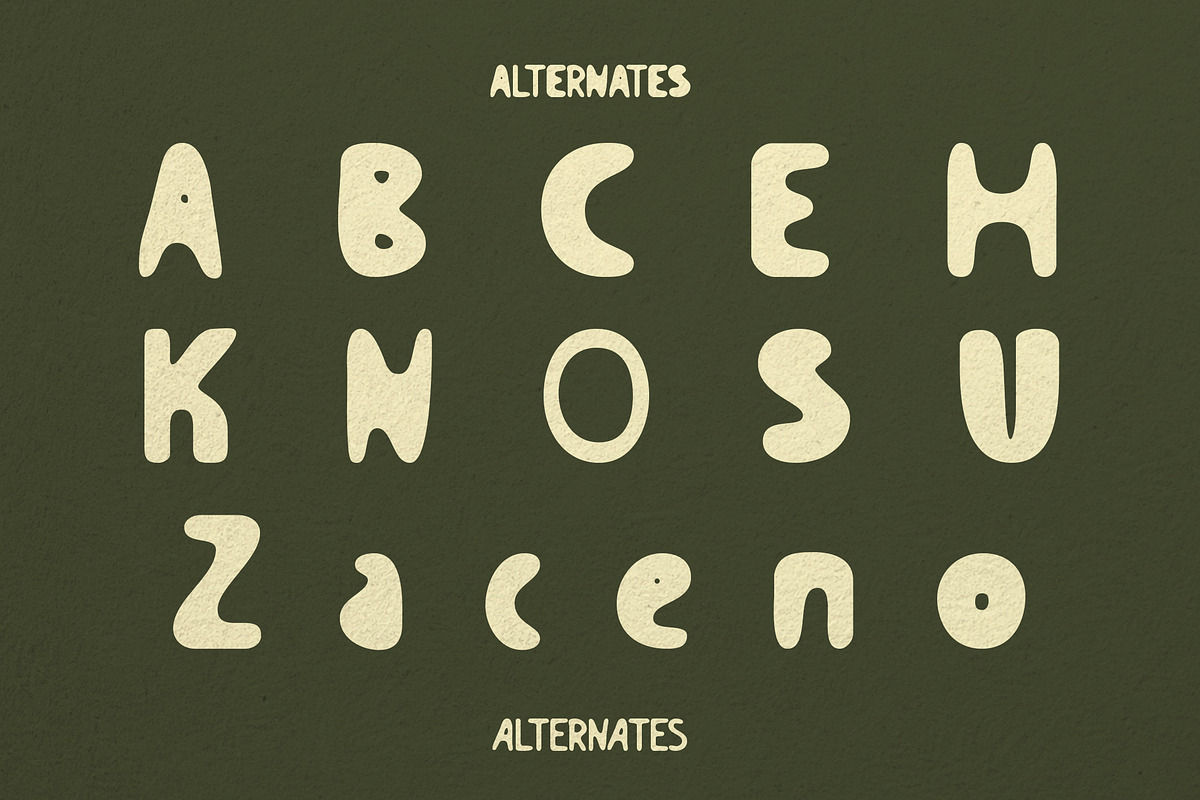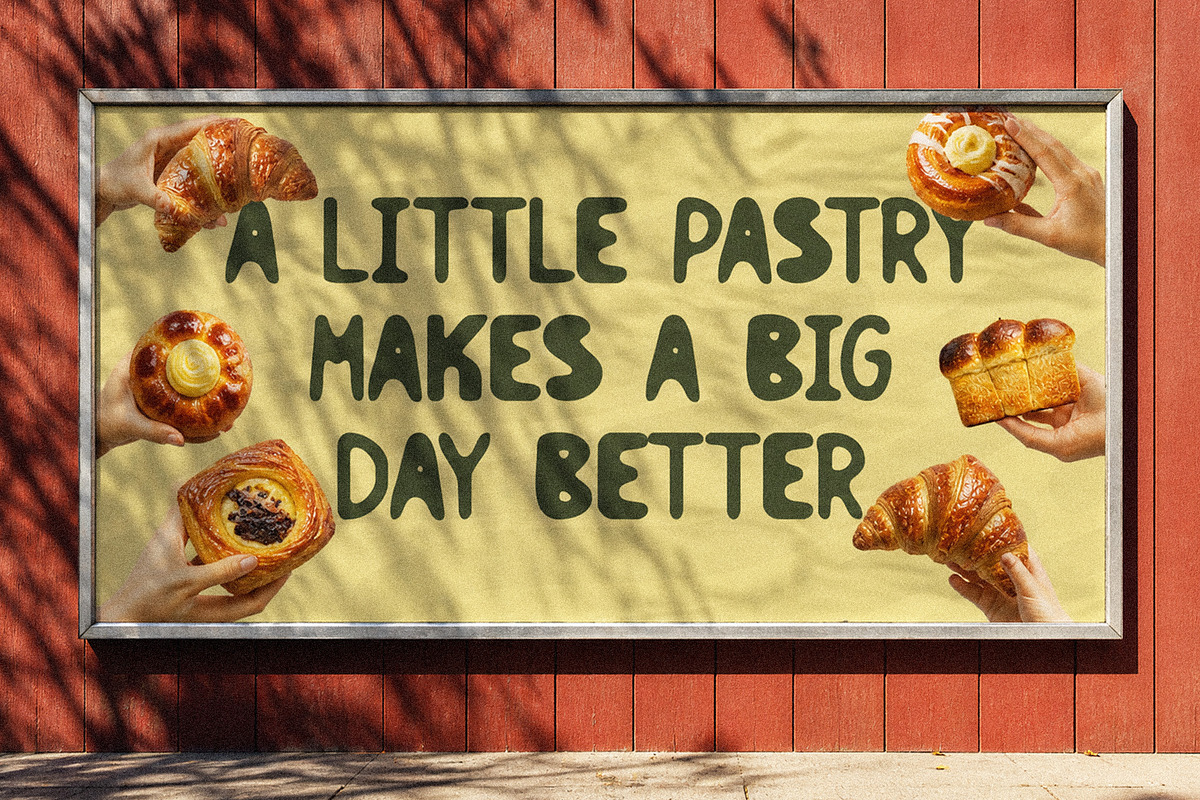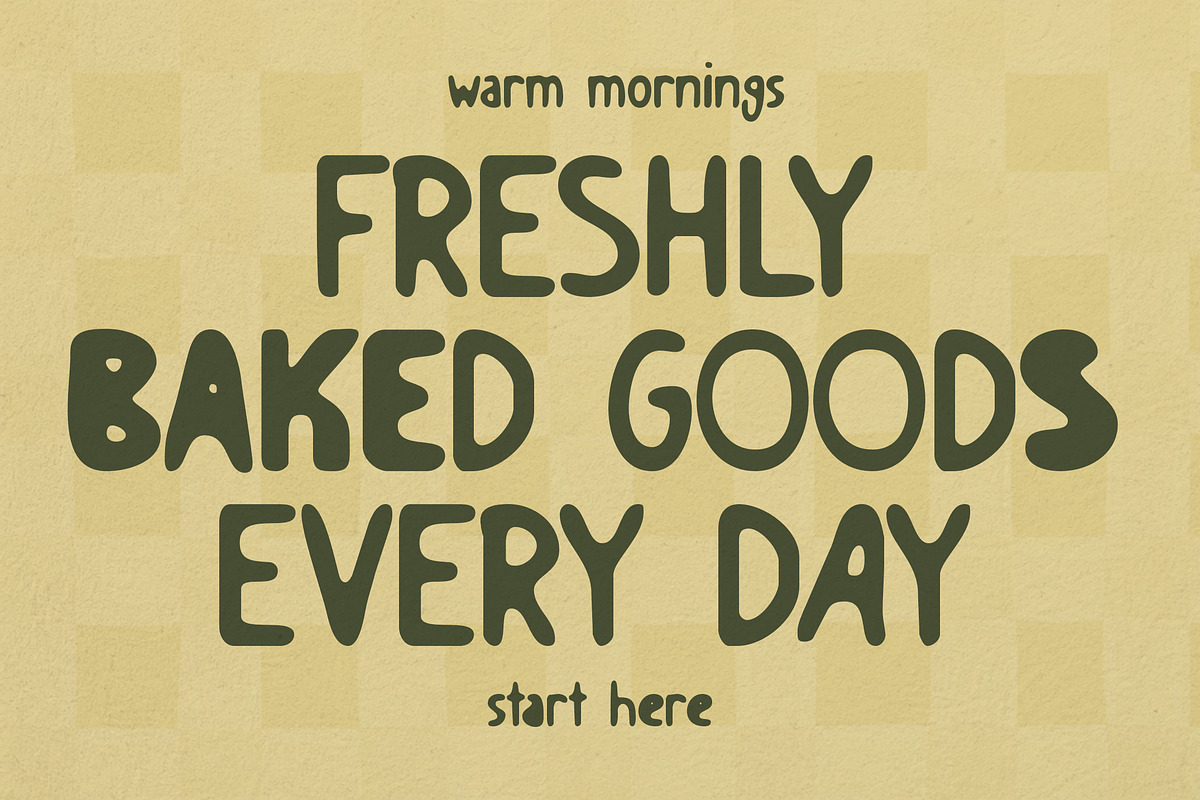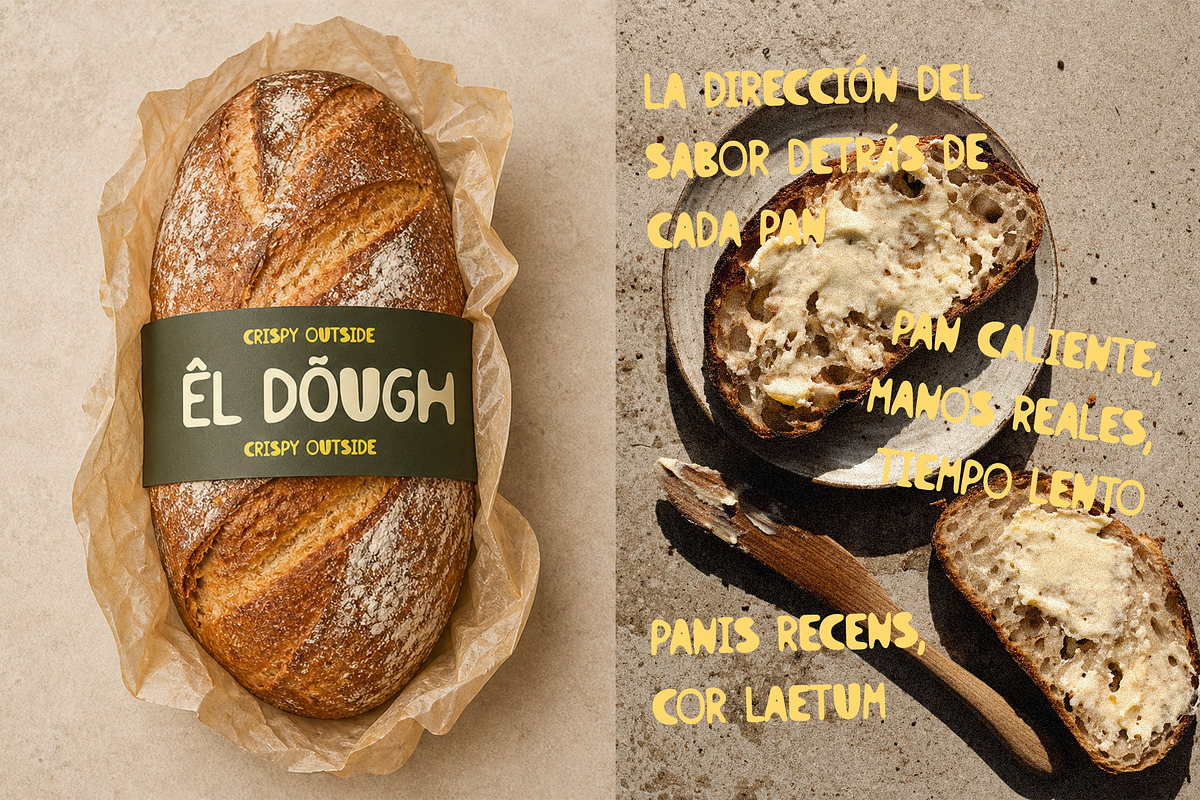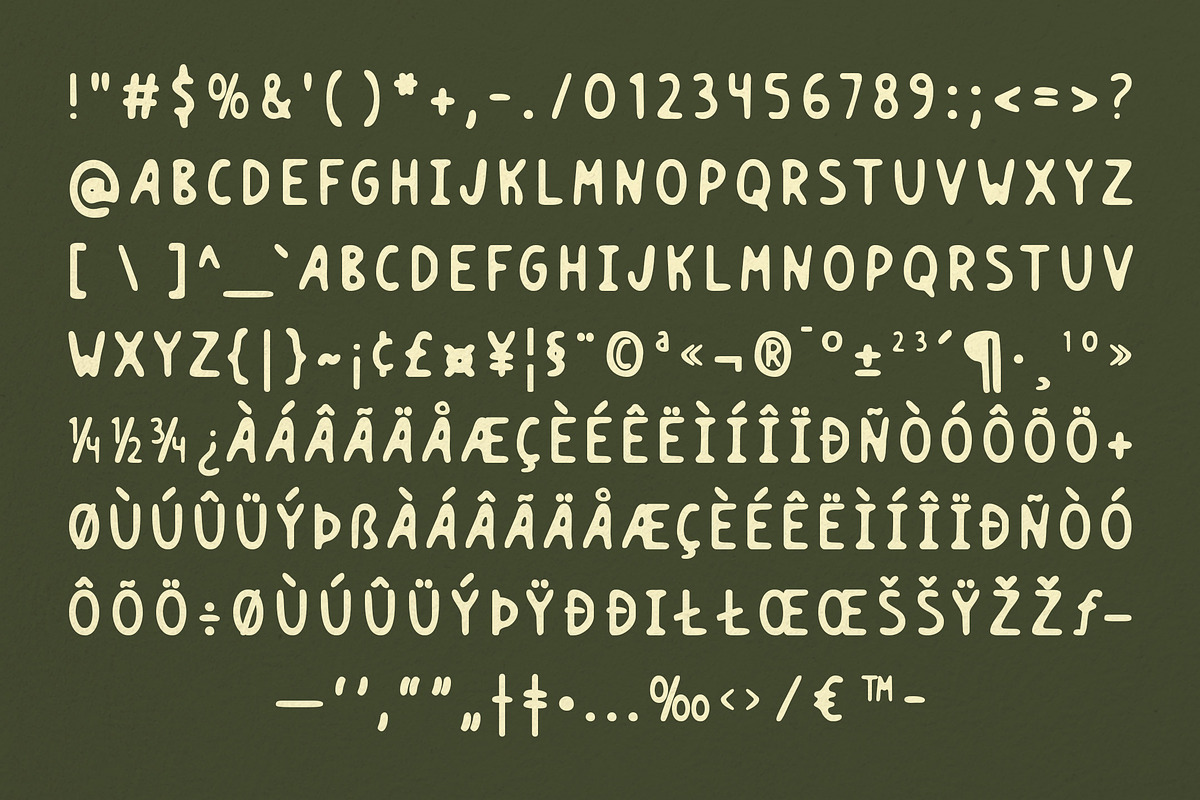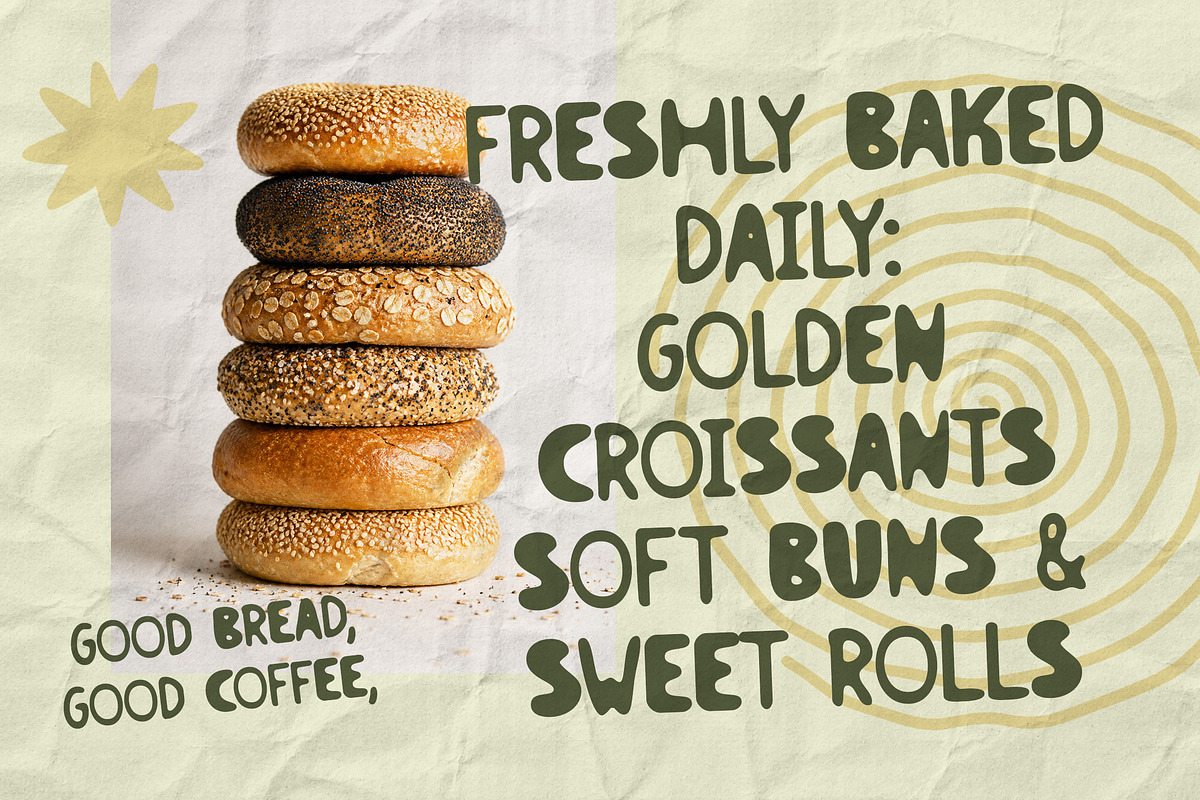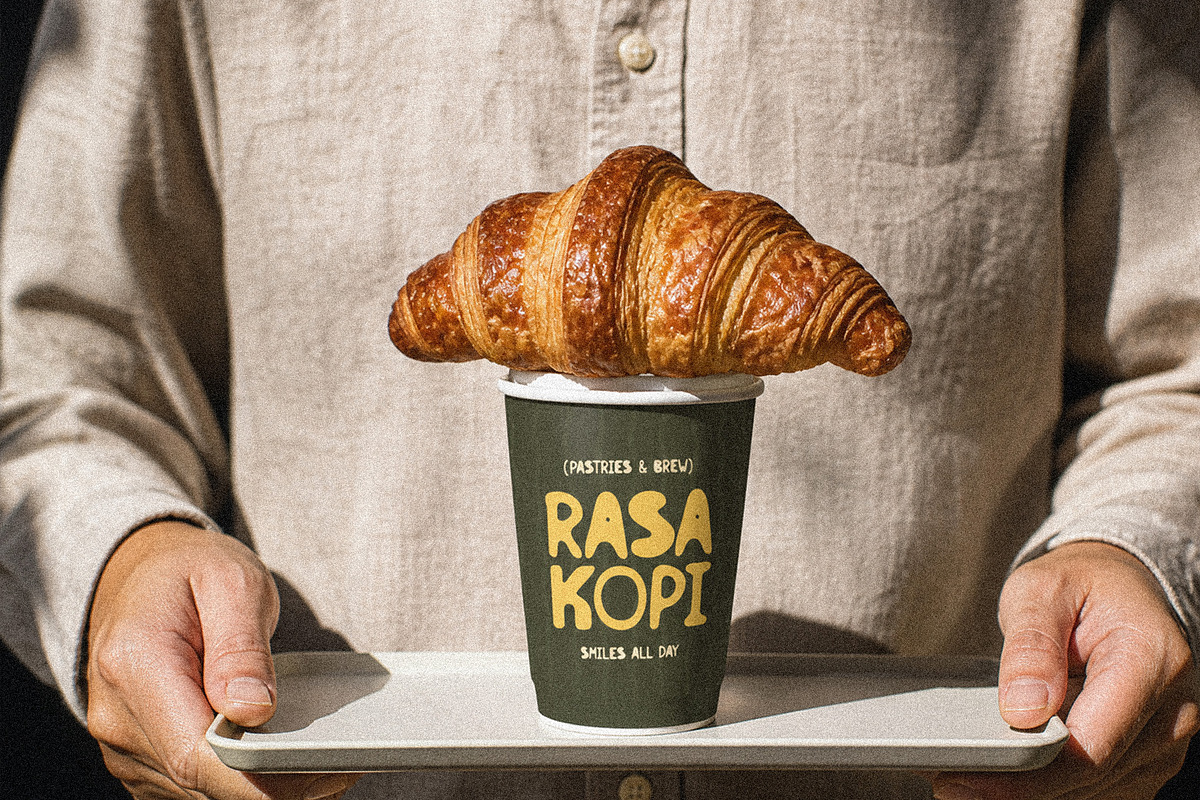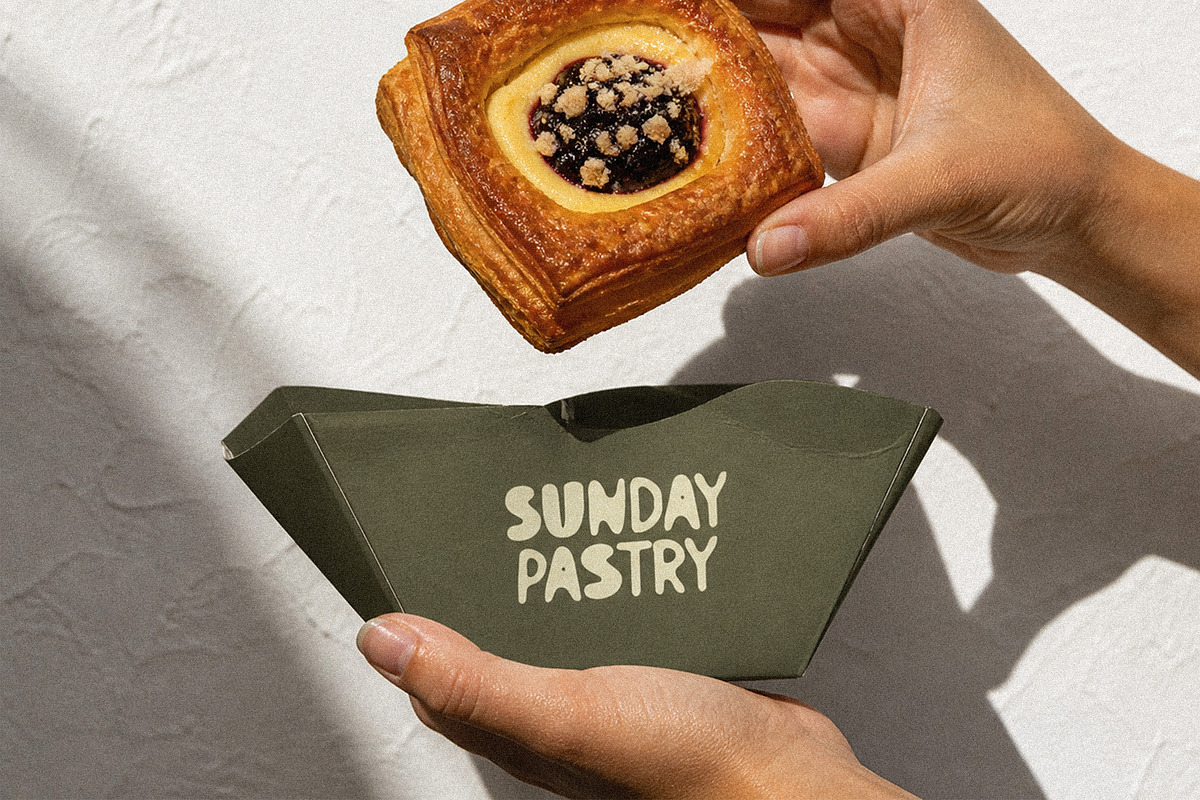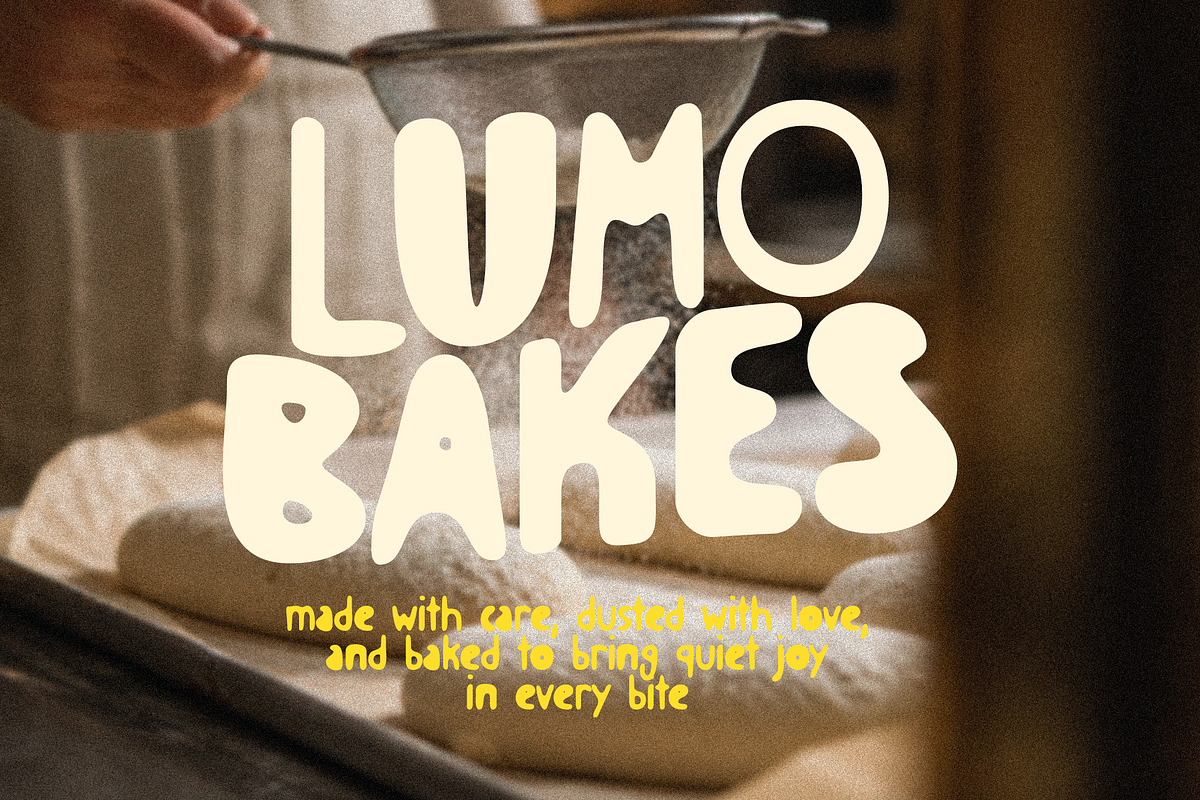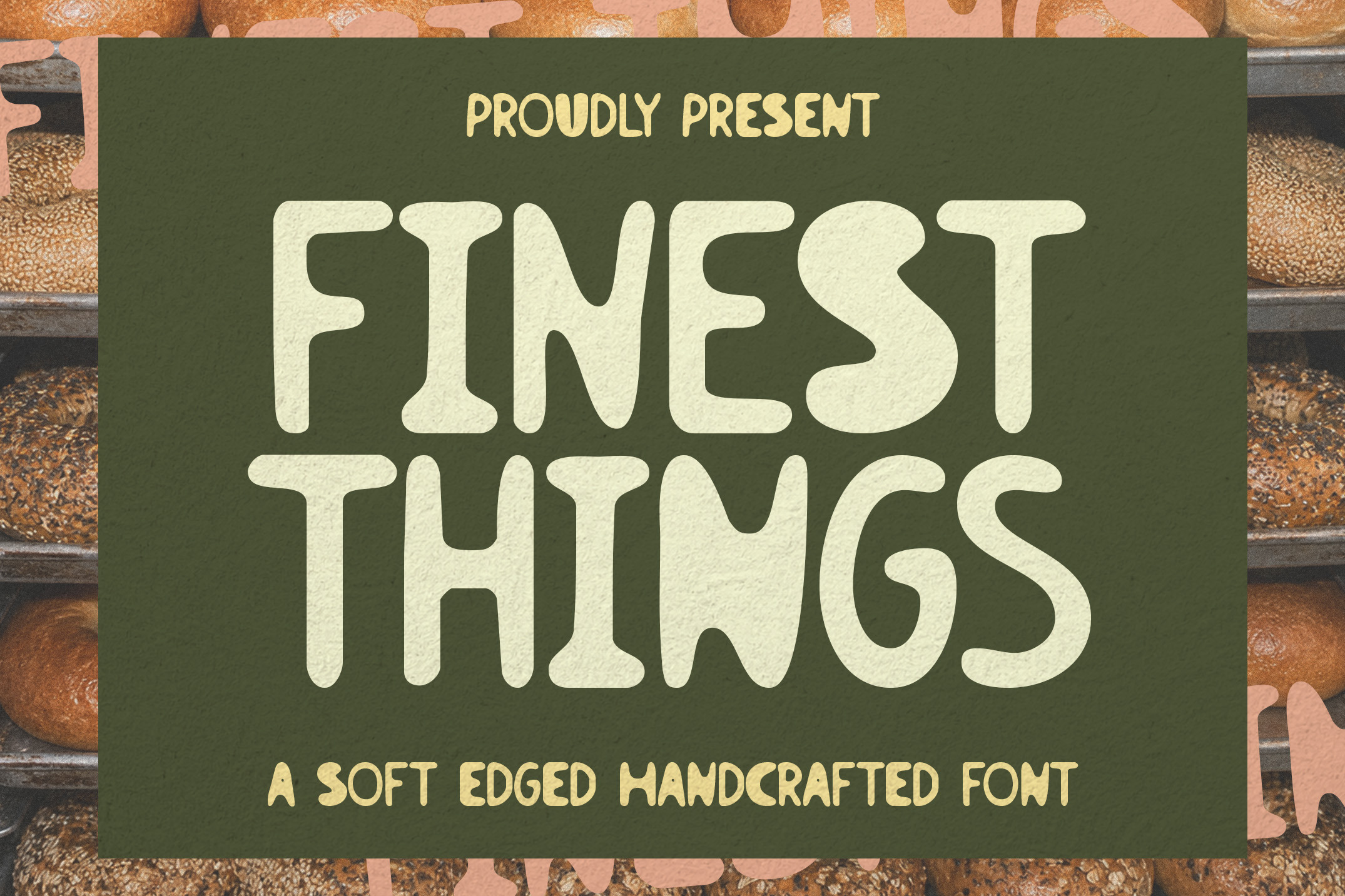
Finest Things – Handcrafted Font
Finest Things is a soft edged handcrafted font designed to bring warmth, personality, and an authentic handmade feel into your creative projects. Inspired by artisan bakeries, cozy cafés, organic packaging, and retro hand-painted signage, this font blends playful character with smooth organic shapes that instantly feel welcoming and memorable.
Every letter is carefully crafted with imperfect natural curves, giving your typography a friendly human touch without losing readability. Whether you are building a rustic café brand, bakery packaging, children’s products, food branding, social media content, posters, or handcrafted merchandise, Finest Things delivers a charming and distinctive visual voice.
This font works beautifully for both bold headlines and casual display text, making it highly versatile across modern branding needs. The soft edges and handcrafted details create a relaxed atmosphere that feels approachable, nostalgic, and full of personality.
Bakery branding
Coffee shop packaging
Organic product labels
Kids branding
Food & beverage projects
Handmade product designs
Retro playful posters
Multilanguage